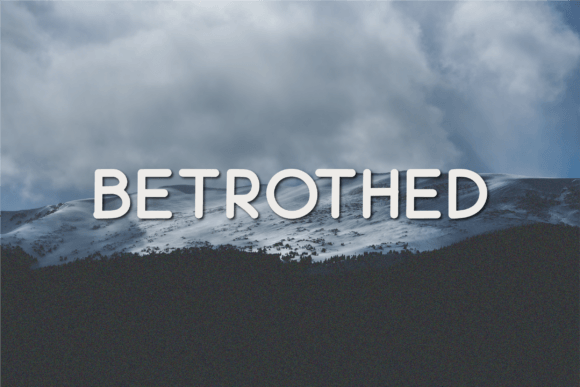
Introducing Betrothed Font - A Sans Serif Gem for Digital Masterpieces!
Embark on a typographic journey with Betrothed Font, a stunning sans serif creation by Becraft that will elevate your digital designs to new heights. This all-caps font exudes a quirky and playful charm that instantly captivates the viewer, making it the perfect choice for a wide range of creative endeavors.
Whether you're crafting enchanting digital displays, designing eye-catching presentations, or adding a touch of whimsy to your greeting cards, Betrothed Font has the versatility to transform your ideas into stunning realities. Its bold and distinctive characters command attention, leaving a lasting impression that will make your projects shine.
Immerse yourself in the endless possibilities that Betrothed Font offers. Its clean and modern lines bring a touch of sophistication to any design, while its playful nature adds a dash of fun and creativity. From sleek logos and elegant branding to vibrant social media posts and engaging website designs, Betrothed Font is your go-to choice for creating designs that resonate with your audience.
With Betrothed Font, you'll discover a font that seamlessly blends style and functionality. Its crisp and legible characters ensure readability across various platforms, ensuring that your message is conveyed with clarity and impact. Whether you're targeting a tech-savvy audience or aiming for a more traditional aesthetic, Betrothed Font effortlessly adapts to your design needs, delivering results that exceed expectations.
Unlock the full potential of your creativity with Betrothed Font. Its user-friendly nature makes it accessible to designers of all skill levels, allowing you to effortlessly create designs that captivate and inspire. Unleash your imagination and explore the limitless possibilities that await you with this extraordinary sans serif font.